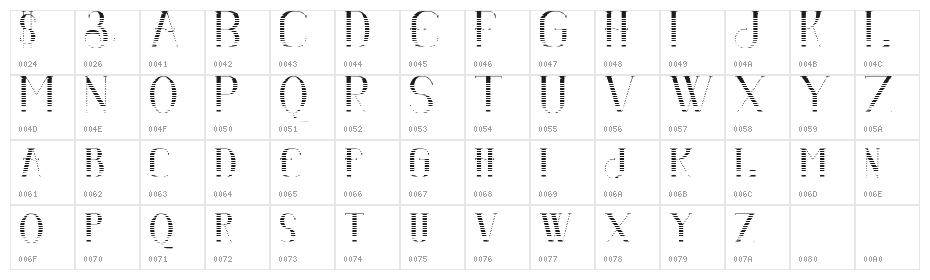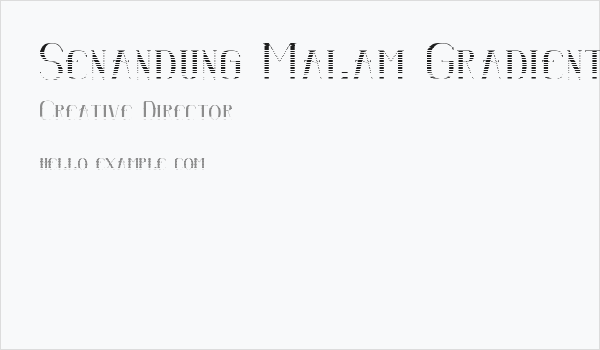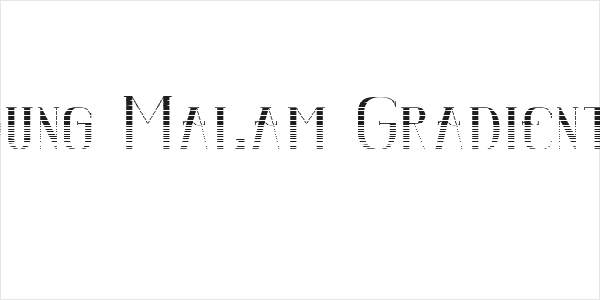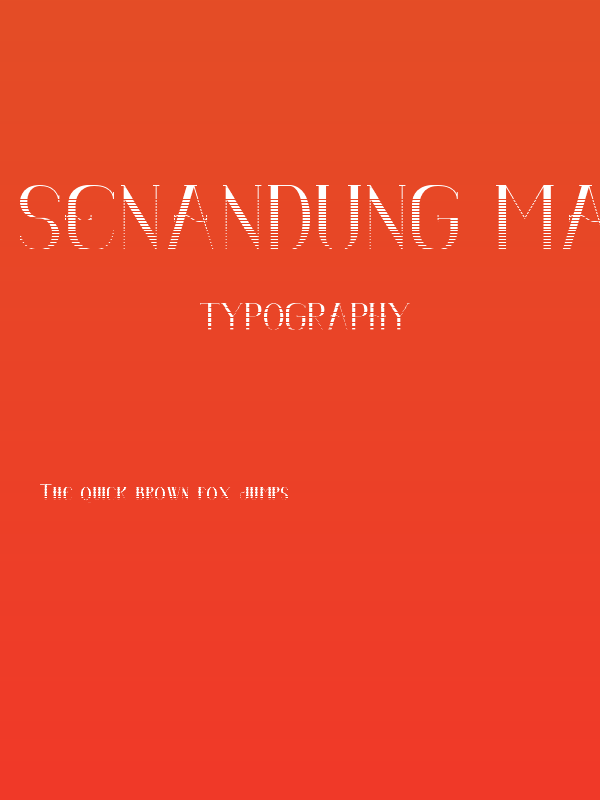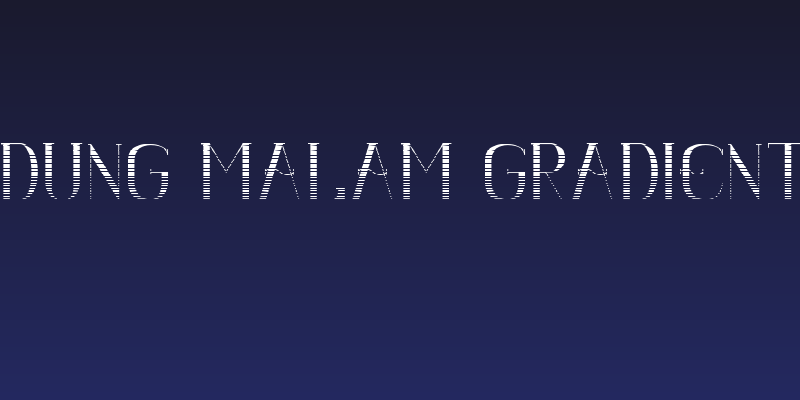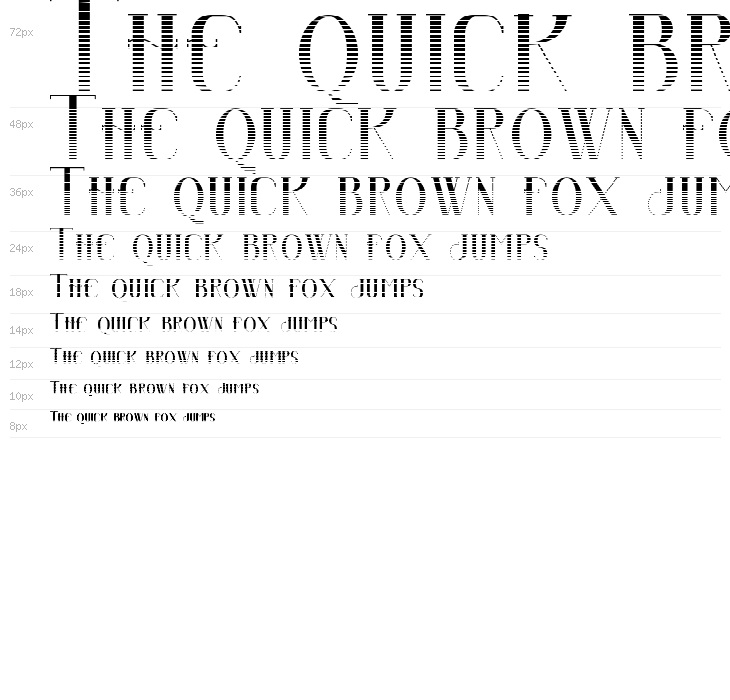
Senandung Malam Gradient Bold Font
Senandung Malam Gradient Bold Description
This font features a unique gradient effect within each character, creating a visually striking appearance. The letters are bold and have a modern, artistic flair, with a distinct horizontal line pattern that adds depth and texture. The uppercase and lowercase letters maintain a consistent style, with clean lines and sharp angles. The numbers and special characters follow the same design principles, ensuring a cohesive look across all elements. This font's innovative design makes it stand out, offering a blend of modernity and creativity.
| Proposed Projects | Ideal for creative projects such as posters, album covers, branding, and digital art where a bold statement is needed. |